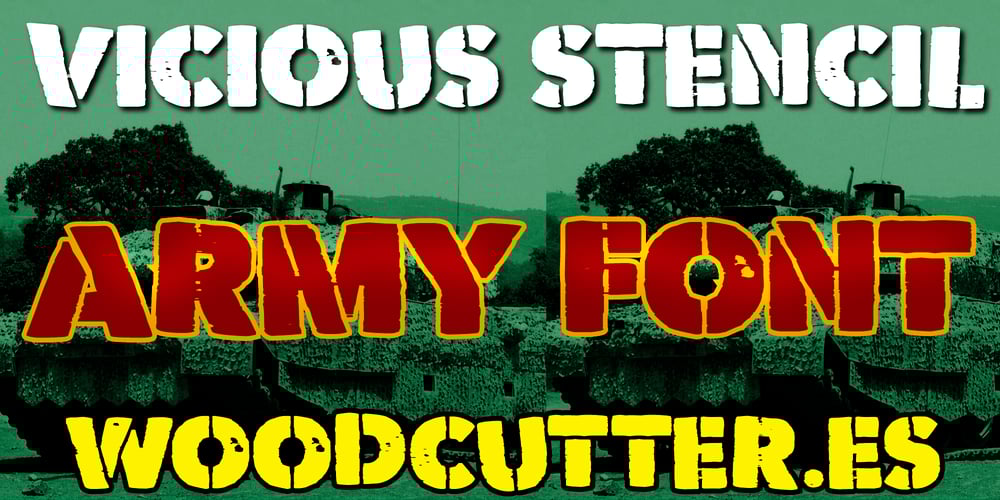
Vicious Stencil
Vicious Stencil font
Vicious Stencil Font Family was designed by Jordi Manero and published by Woodcutter. Vicious Stencil contains 1 styles and family package options. “Vicious Stencil” is a military stencil typeface with a touch of imperfection that adds character to each letter. Slightly crooked and somewhat deteriorated, this font has a worn-out look that suggests usage and time. With included accents, “Vicious Stencil” is ideal for projects requiring a rough and authentic aesthetic, evoking images of urban graffiti or military gear in action. Perfect for posters, t-shirts, and graphic designs that aim to stand out with a bold and rebellious style, this typeface ensures your messages are as impactful as they are visually striking.–Uppercase